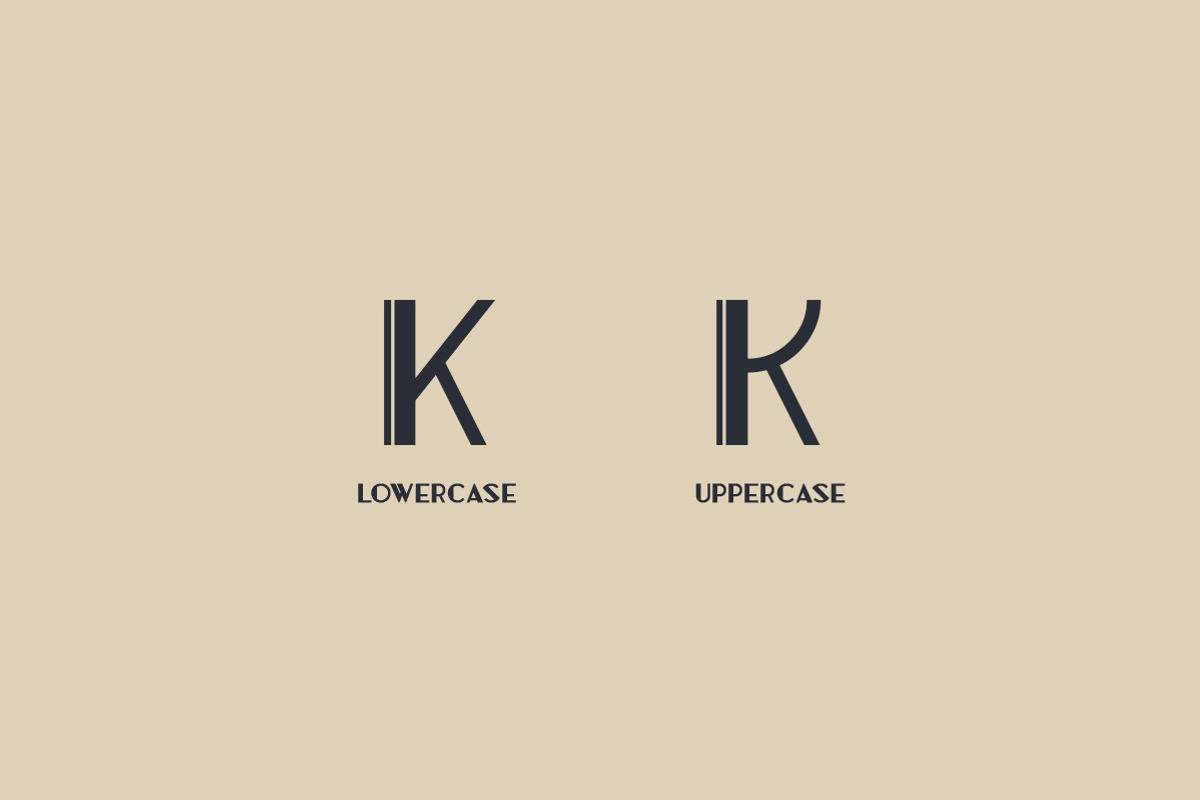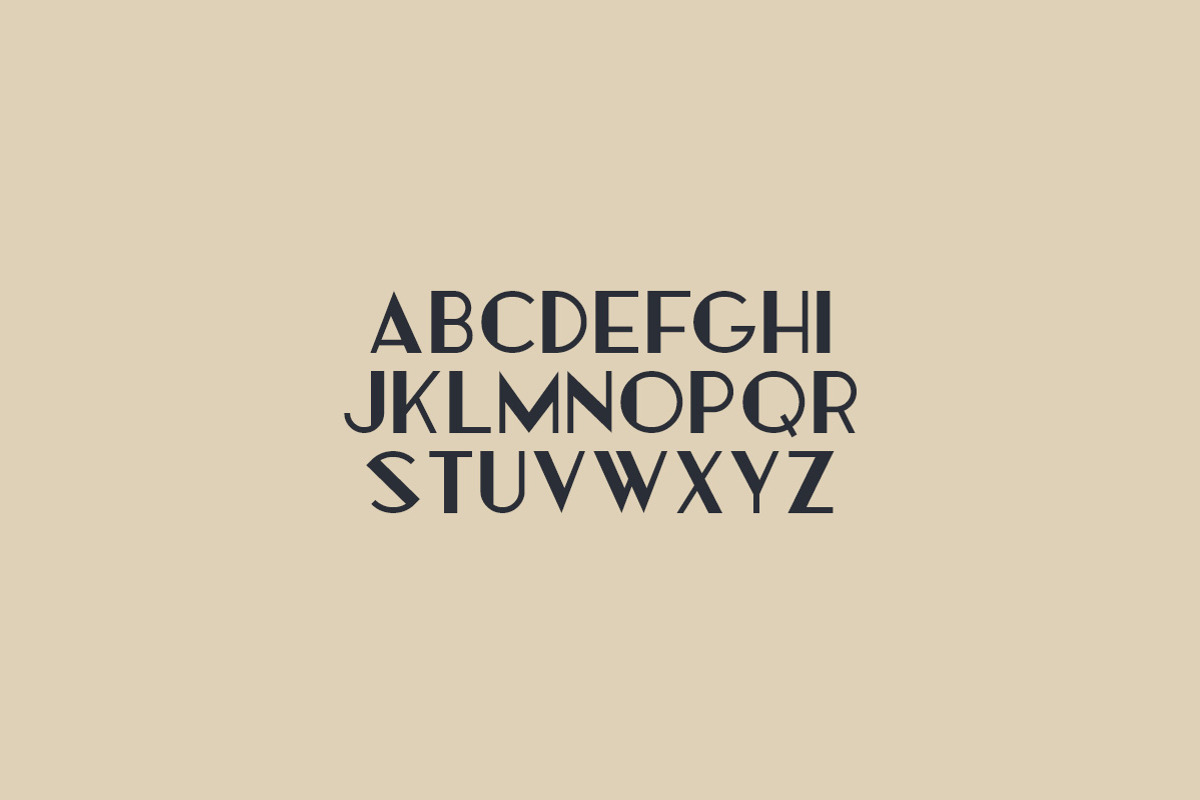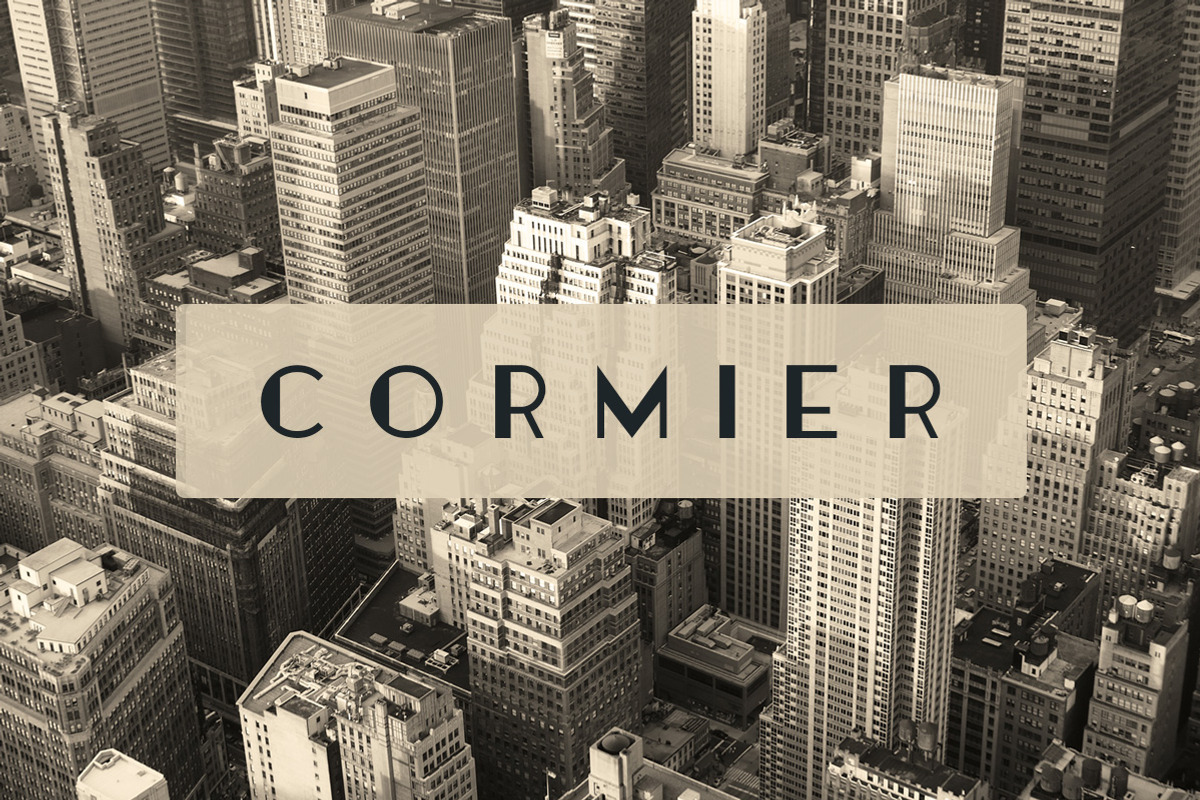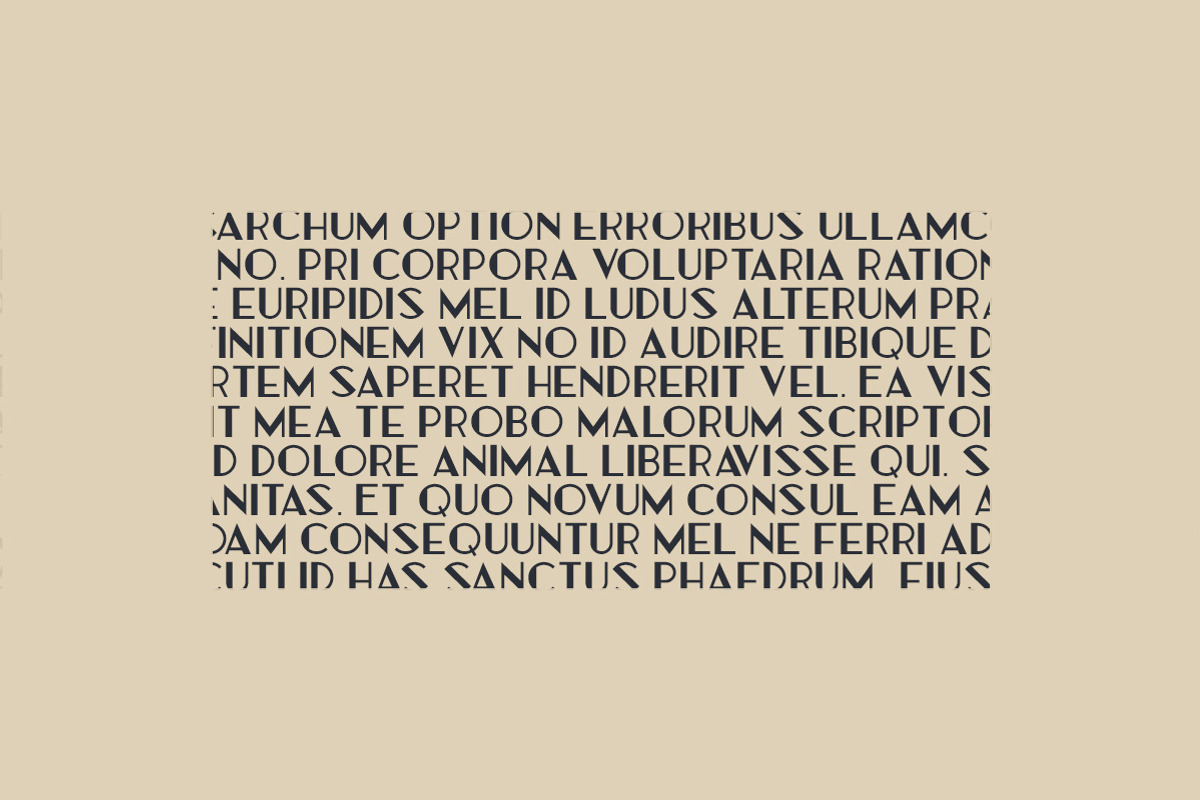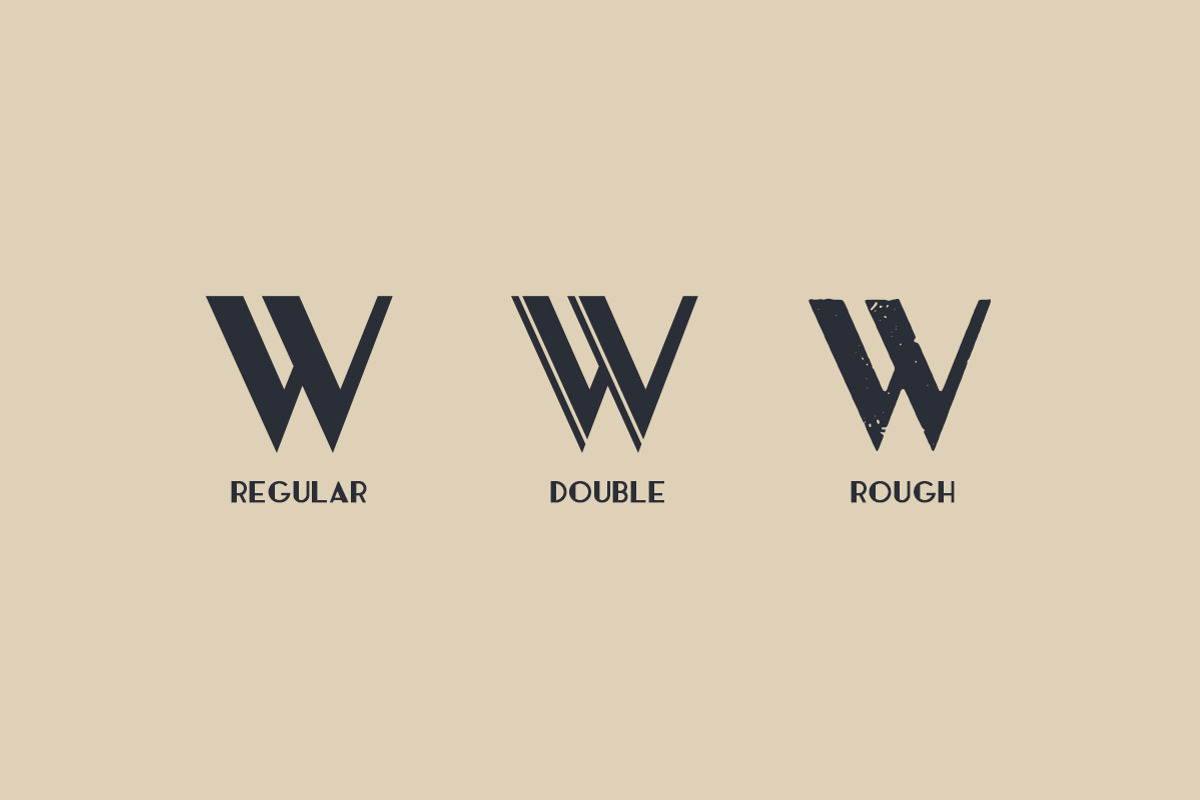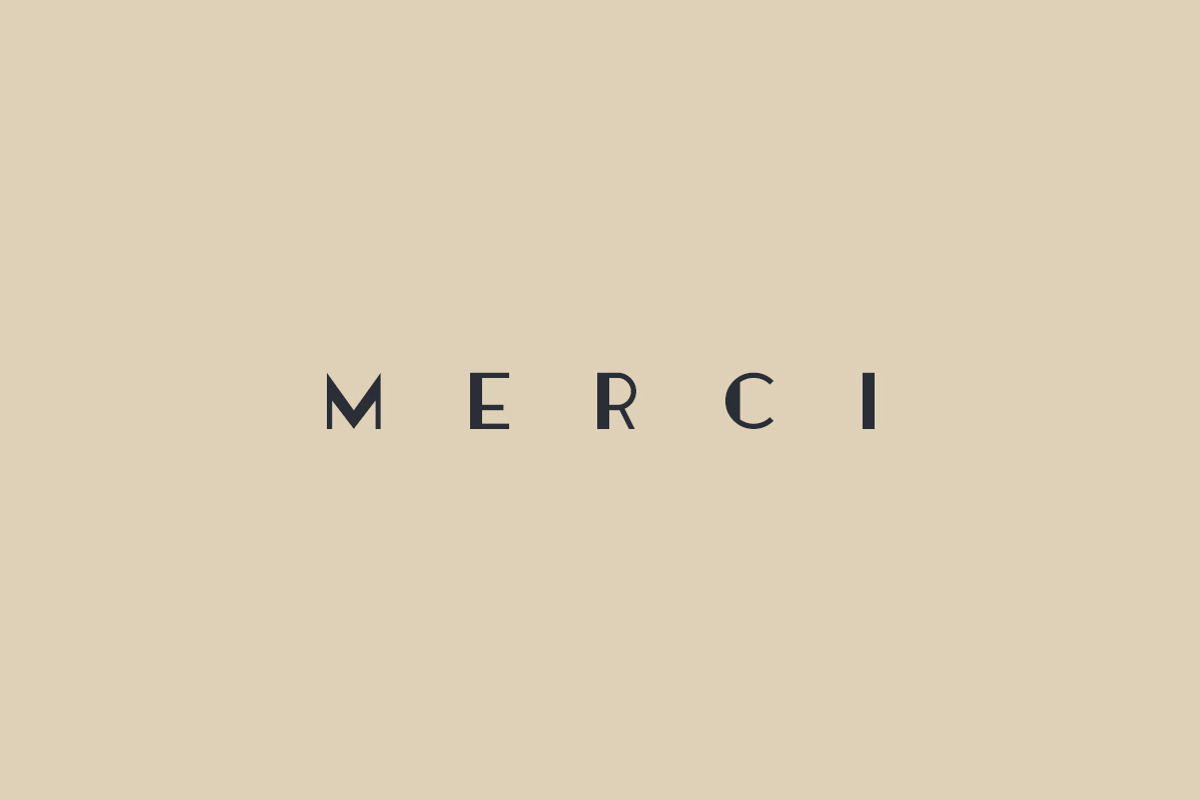
Cormier Typeface
Cormier is an Art Deco themed typeface in 3 styles.
- Rough, Double and Regular styles.
- English uppercase letters, numbers and punctuation.
- Alternate letters toggleable with caps lock.